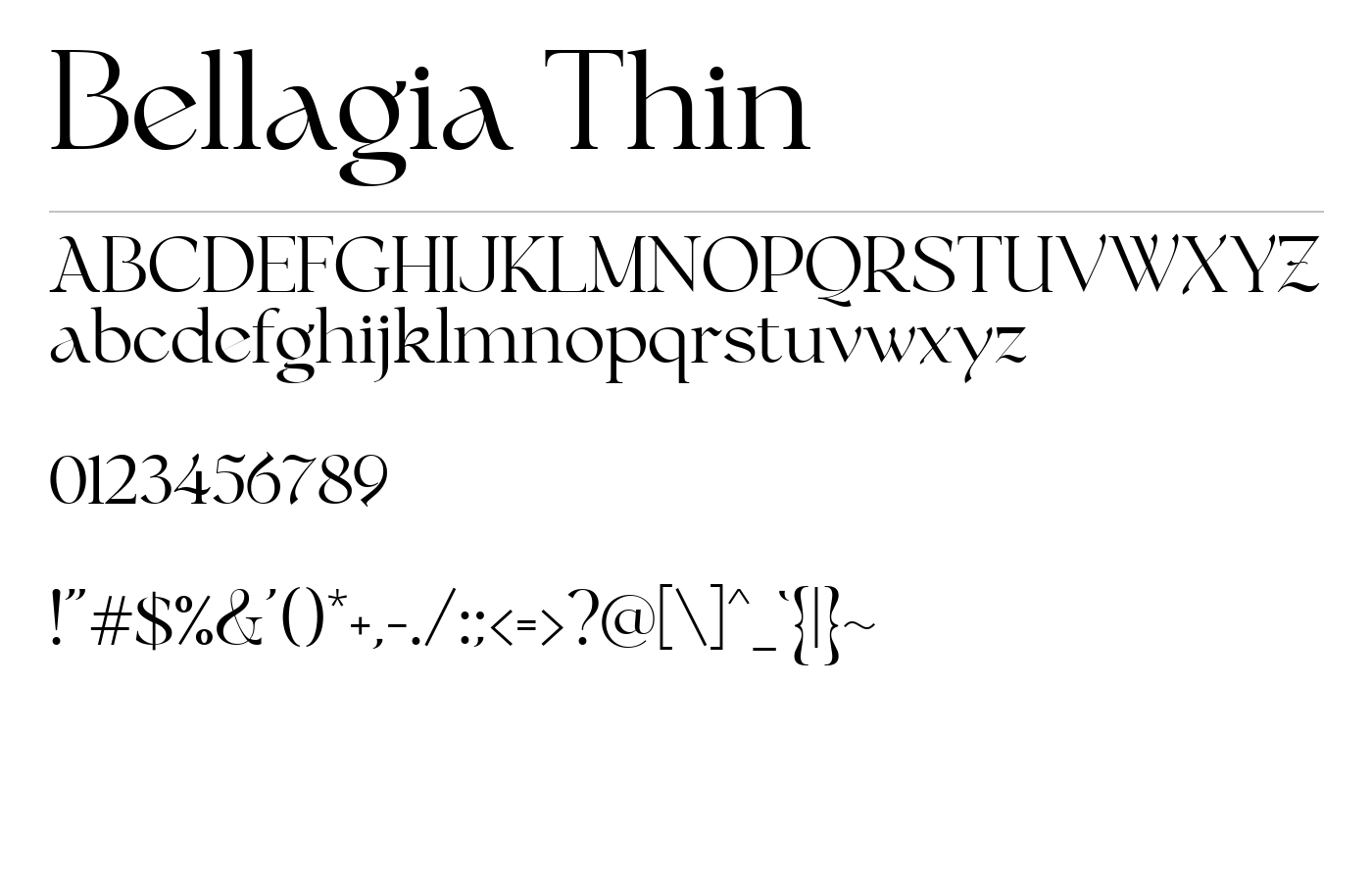
Bellagia Thin is an elegant serif font characterized by its delicate, high-contrast thin strokes and refined, slightly curved serifs that offer a modern take on classic Didone style. It features graceful, open letterforms with distinctive details such as pointed terminals and a refined Q tail, making it ideal for luxury branding, editorial headlines, and sophisticated design projects where a stylish, airy, and upscale feel is desired.
Bellagia Thin Font
About Bellagia Thin Font